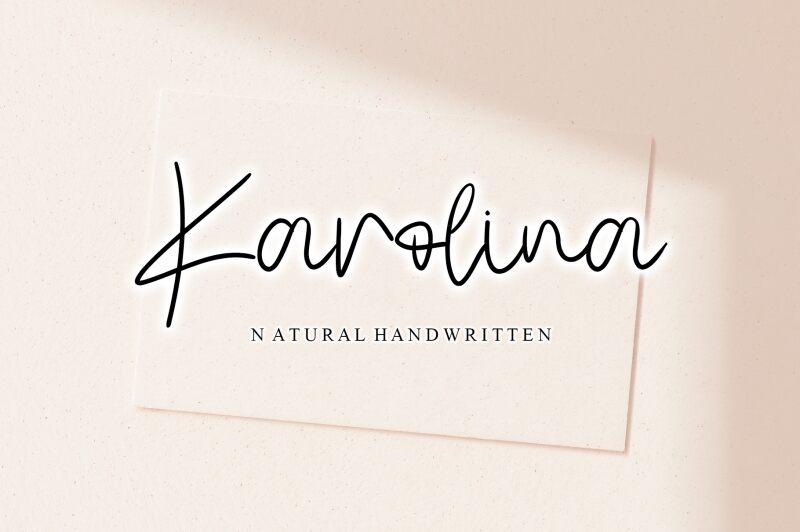
Karolina
Karolina font by Letterafa Studio is an elegant light handwritten font combining an exquisite signature style with a modern aesthetic. The flowing rhythm of its letters gives the typeface a sense of casual elegance, fitting for users who wish to give their designs and artwork that unique personal touch.
Use this free handwritten font in logos, product packages, magazines, greeting cards, or picture books. Use it for the description section on your online shop or on your personal website to complement its entry with a joyful caption.